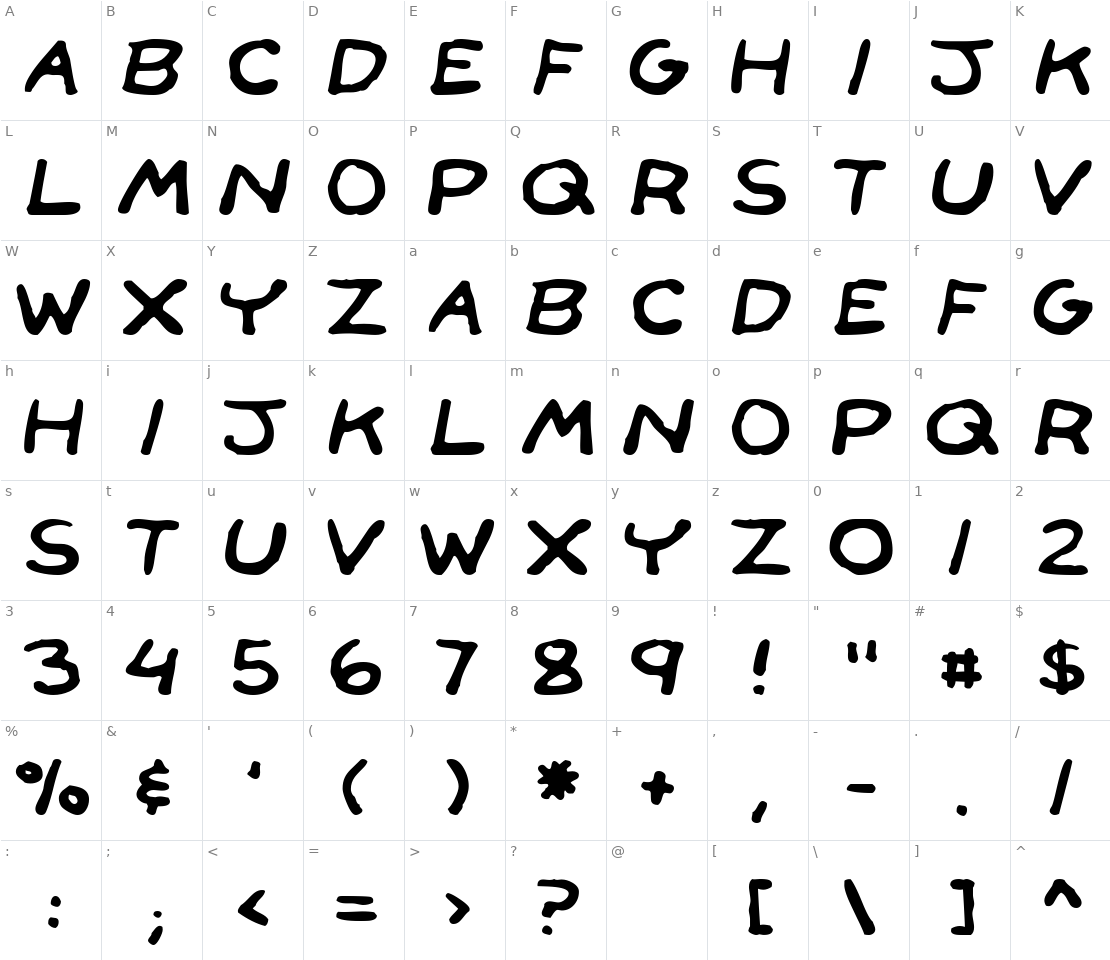
Face Front
Face Front is a bold, uppercase comic lettering font from Cumberland Fontworks with the slightly irregular hand-drawn quality you'd expect from a speech balloon or splash page. The letterforms are thick and casual, with enough wobble to feel authentic rather than mechanical. Built for headlines, comic lettering, and playful display work where you want something punchy and a little loose.